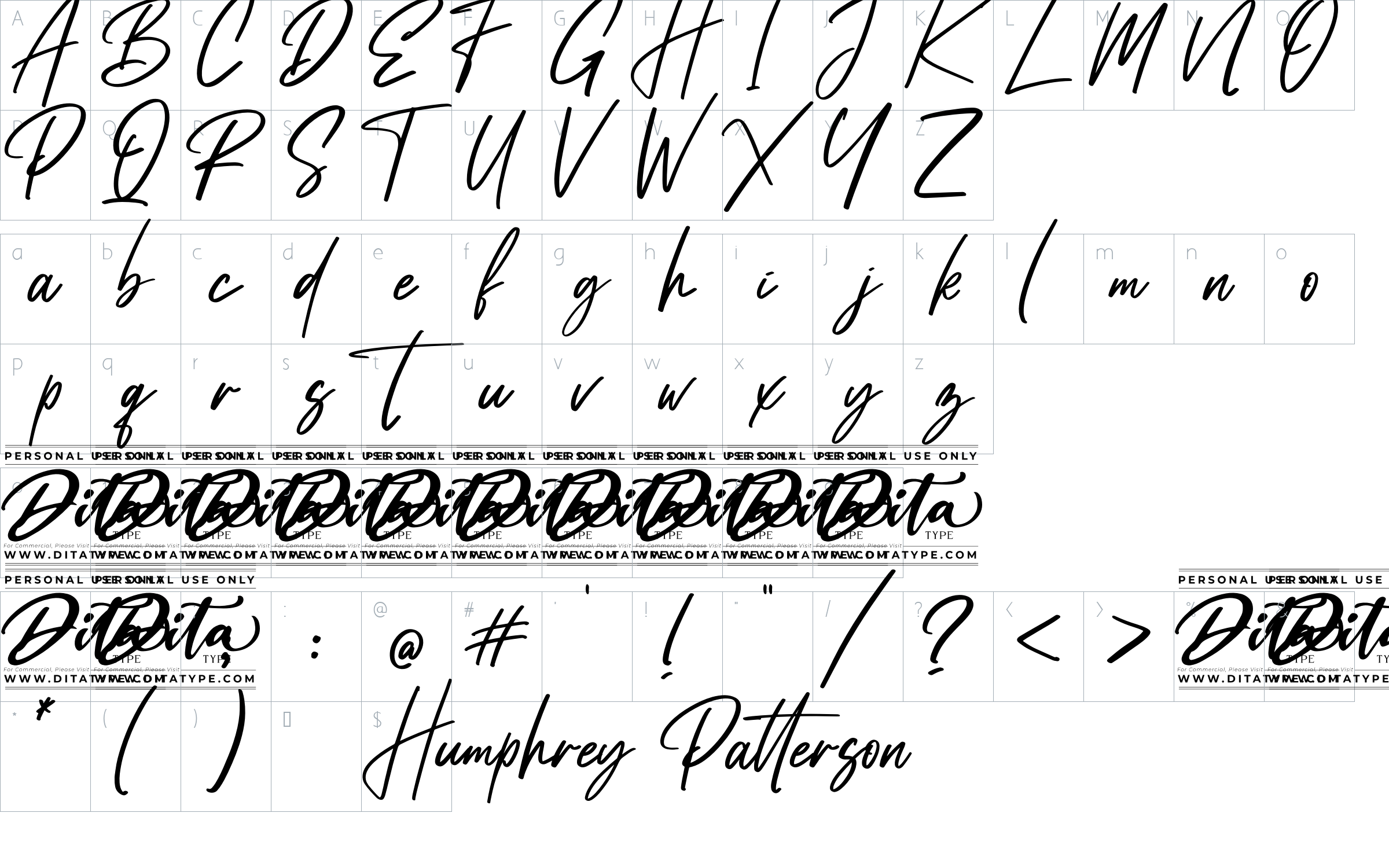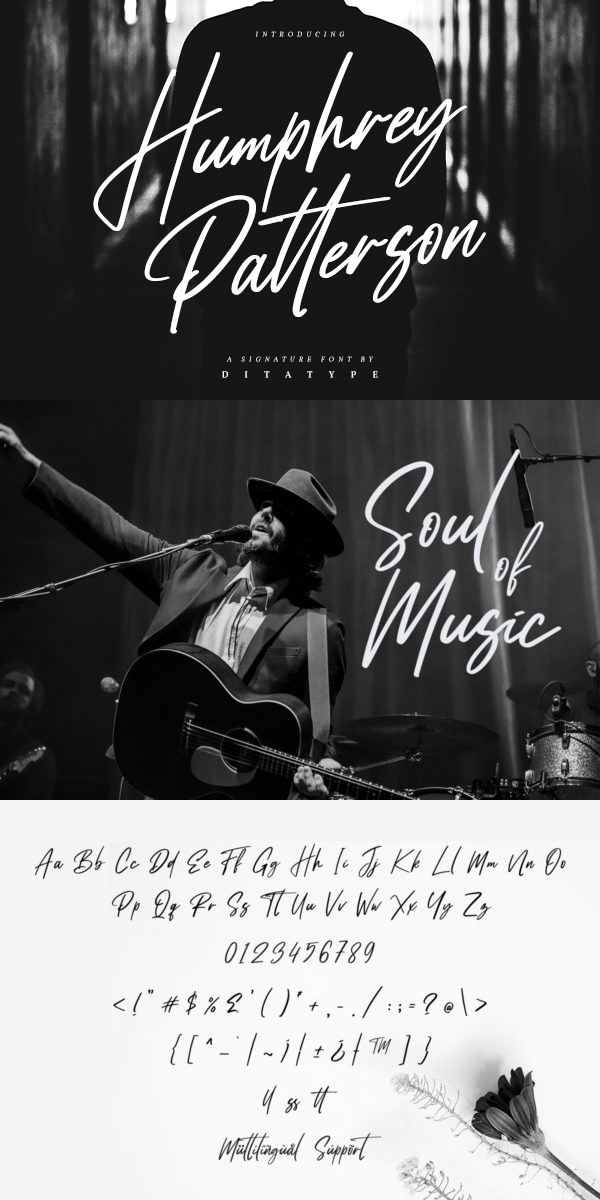
Humphrey Patterson Font
About Humphrey Patterson
Humprey Patterson is a beautiful handwritten font, made to become a true favorite. This is a stunning combination of timeless elegance and authentic calligraphy. Humprey Patterson is the perfect font for making original and outstanding designs, both formal and informal.